34 minimalist fonts for sleek designs
Sometimes, less is more. Minimalist fonts can bring simple sophistication to a design, enhancing readability and creating a clean, polished aesthetic.
A minimalist font is a typeface characterized by clean lines, simple letterforms, and a lack of decorative embellishment. These fonts avoid intricate details, focusing instead on clarity, readability, and balanced proportions. They are typically sans serif, and they may also be monospace.
Whether you’re designing a logo, a website, or an entire brand, the right minimalist typeface can make a powerful statement.
Font 1: Manrope
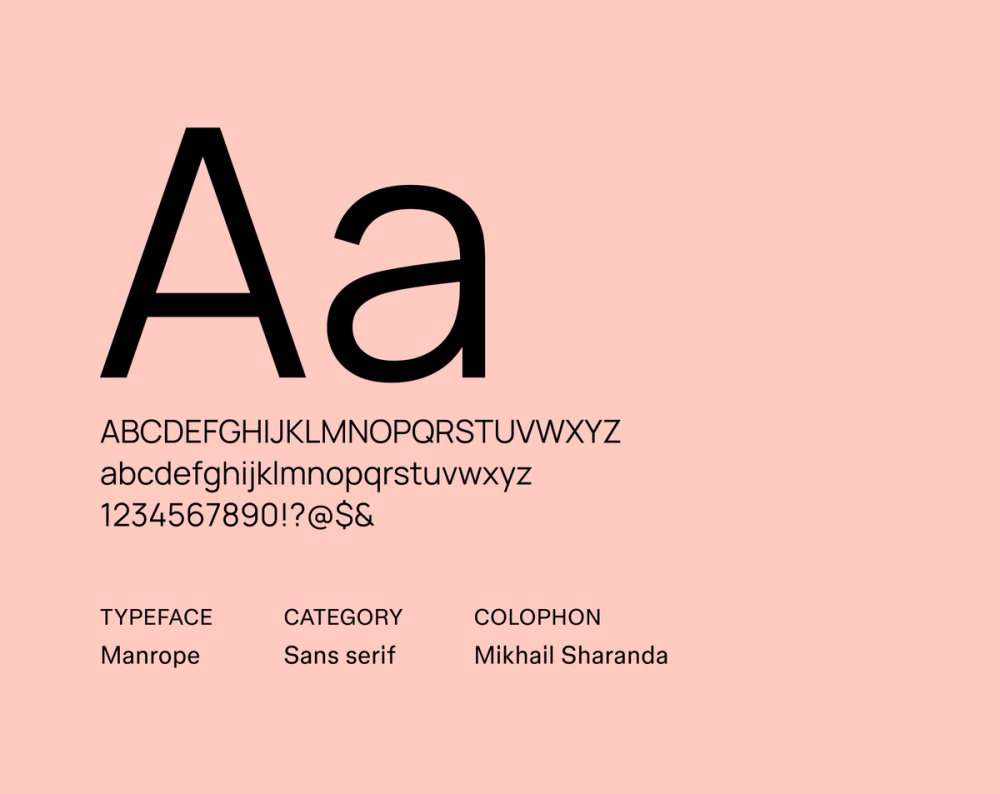
Manrope is a clean and versatile sans serif with open letterforms and subtle stroke modulation. It brings a modern touch to designs while maintaining excellent readability across platforms and sizes.
Best for: Branding, logos, websites, headlines, interfaces, body text
Font 2: Poppins
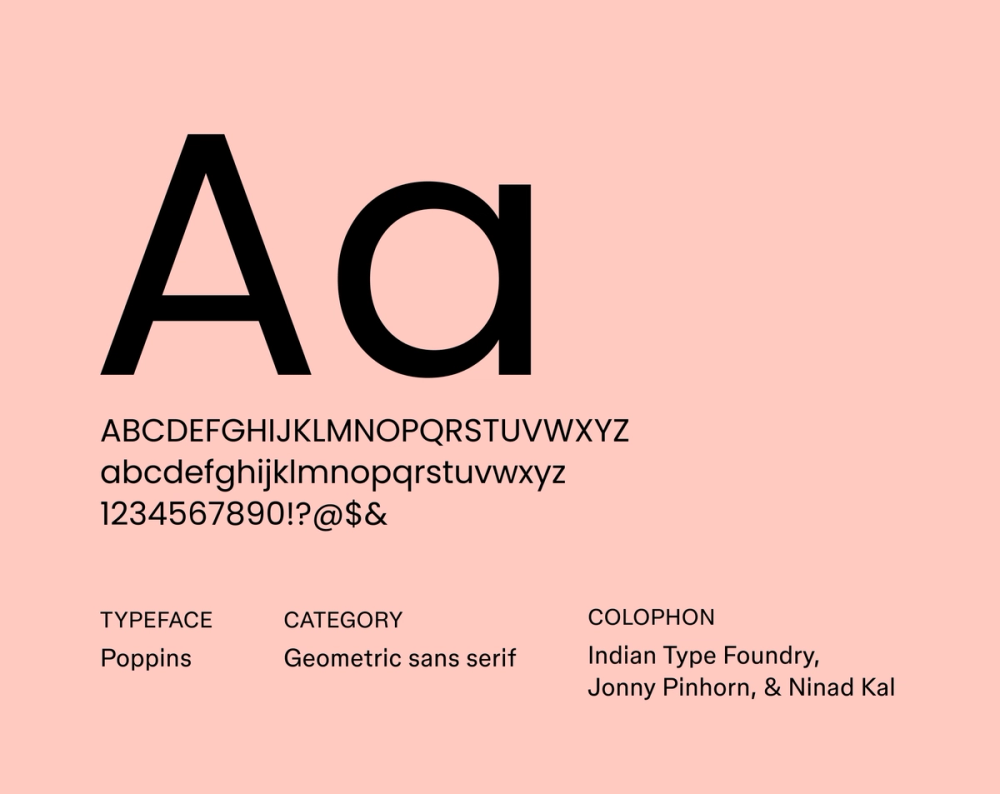
Poppins features clean lines, slightly condensed letterforms, and a friendly, approachable tone. Its clean and minimalist design makes it versatile for body text and display, and its extensive character set supports multiple languages and scripts.
Best for: Body text, websites, branding, mobile apps
Font 3: Work Sans
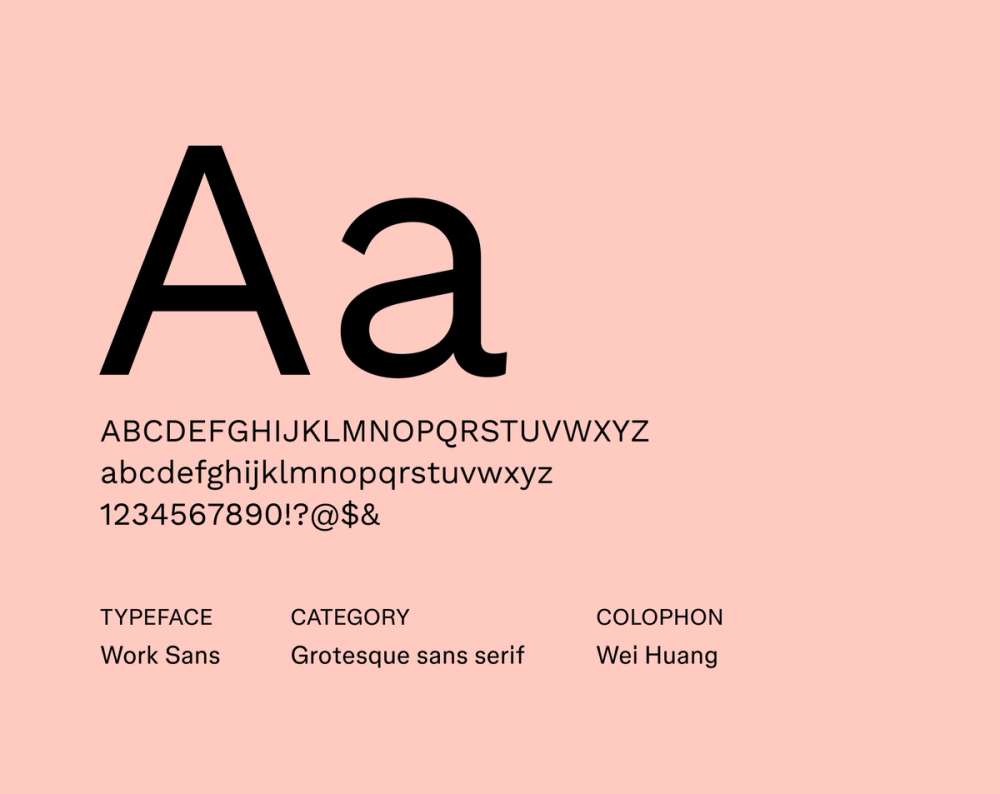
Work Sans is a versatile sans serif designed for readability across screen and print. The middle weights of the family are optimized for on-screen text usage at medium sizes, while the more extreme weights are ideal for display purposes.
Work Sans is characterized by open letterforms, a slightly condensed structure, and a large x-height, contributing to its excellent legibility. Designer Wei Huang was inspired by early grotesque fonts but wanted to incorporate a modern and friendly touch.
Best for: Headlines, logos, interfaces, body text
Font 4: Karla
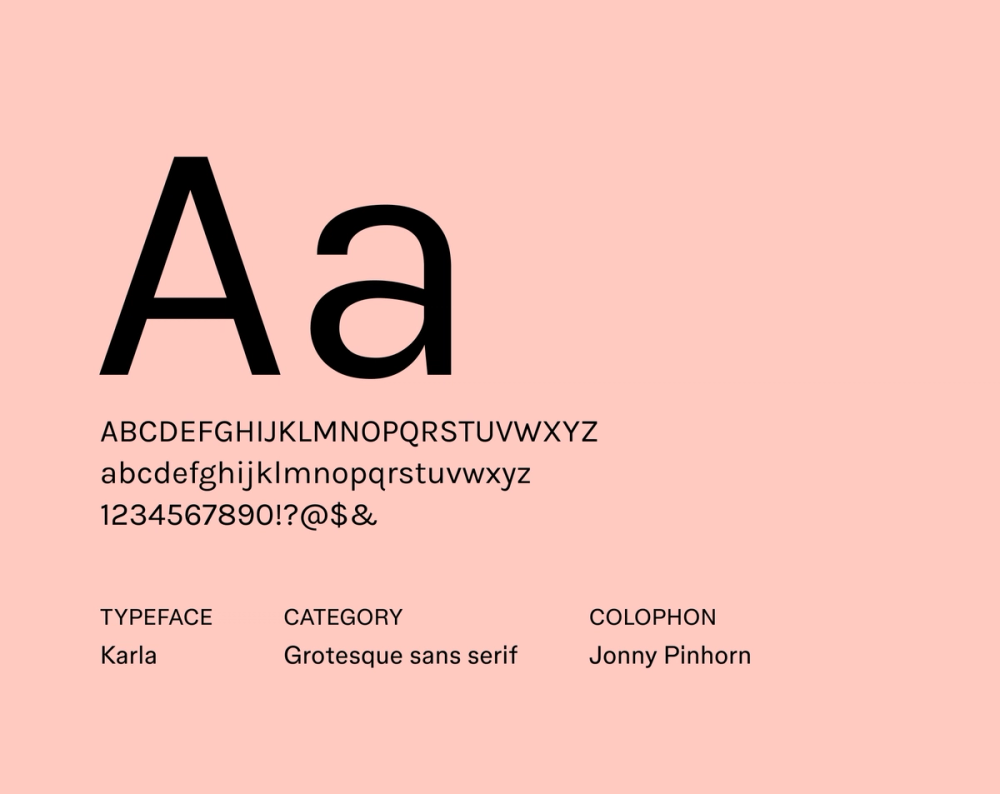
Karla offers open forms, a generous x-height, and slightly condensed letterforms for excellent readability. It works across digital and print projects and supports Latin and Tamil scripts.
Best for: Body text, headlines, interfaces, multilingual projects
Font 5: Dongle
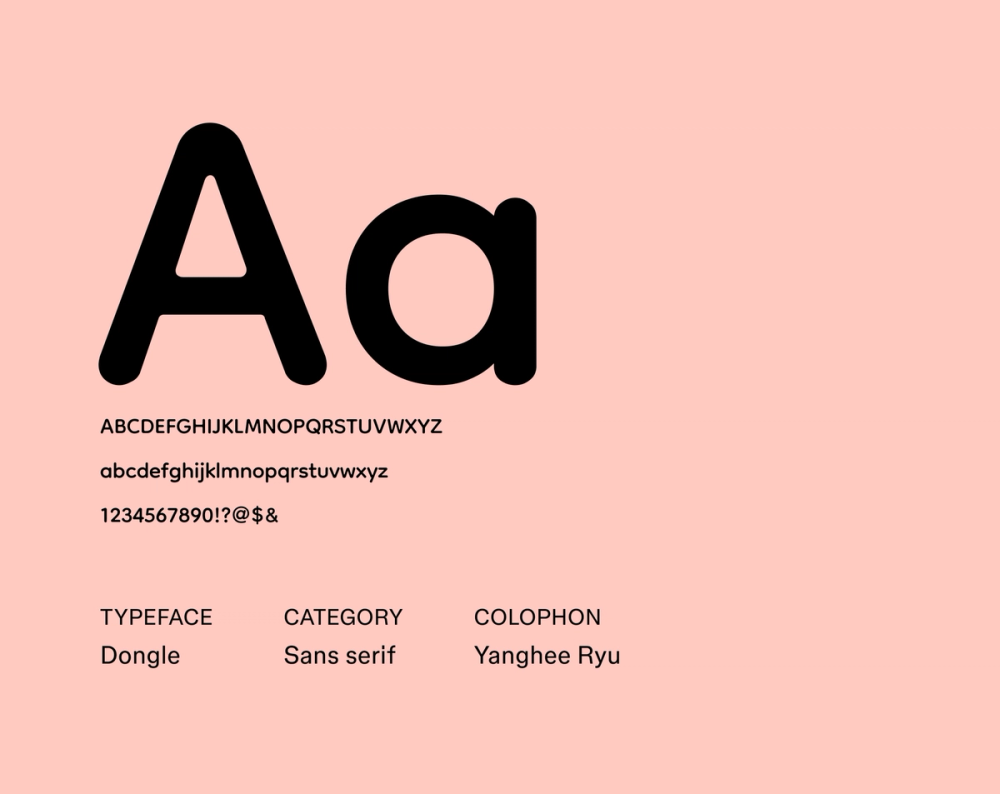
Dongle is a charming, rounded sans serif typeface originally created for the Korean language. Its soft, approachable forms, modular structure, and playful rhythm give it a friendly, approachable feel.
The name “Dongle” comes from a Korean onomatopoeia that describes rounded shapes, perfectly capturing the font’s friendly and inviting aesthetic. While initially designed for Hangeul typography, Dongle also includes Latin characters, making it versatile for multilingual projects.
Best for: Websites, social media, educational materials, posters, packaging, multilingual projects
Font 6: Raleway
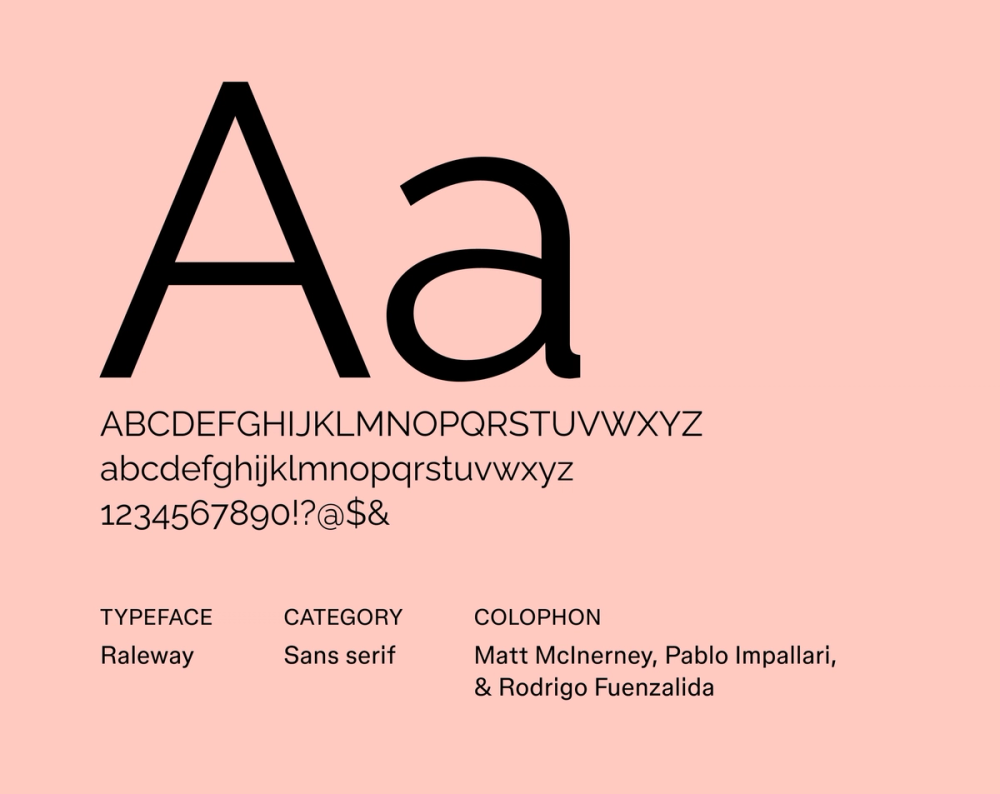
Originally designed as a single thin weight, Raleway expanded into a full family with nine weights. This opened up possibilities for numerous Raleway font pairings.
Its elegant sans serif structure blends geometric and humanist influences, making it a versatile choice for display, branding, and body text..
Best for: Headlines, logos, branding, body text
Font 7: Inconsolata
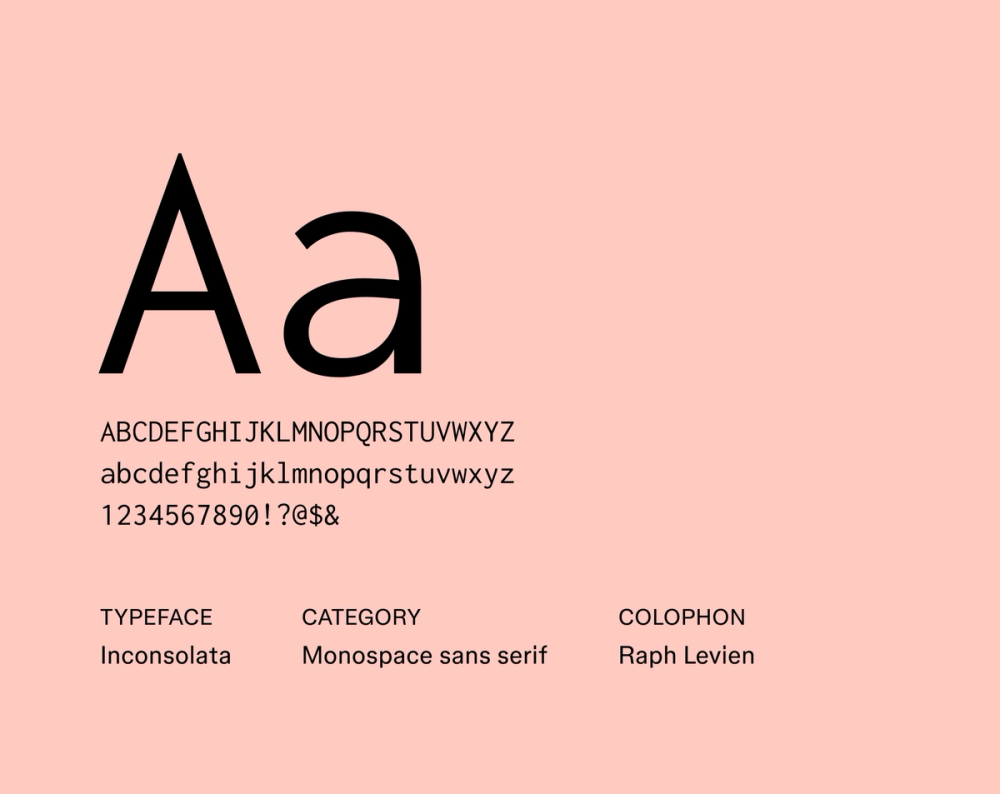
Inconsolata is a monospace font designed for code listings and technical documents, drawing inspiration from classic typefaces like Consolas, Avenir, and Letter Gothic.
Its humanist touches and clear letterforms also make it surprisingly versatile for programming environments, terminals, and body text in documents or retro-style Web pages.
Best for: Coding, technical documentation, body text, websites
Font 8: Comfortaa
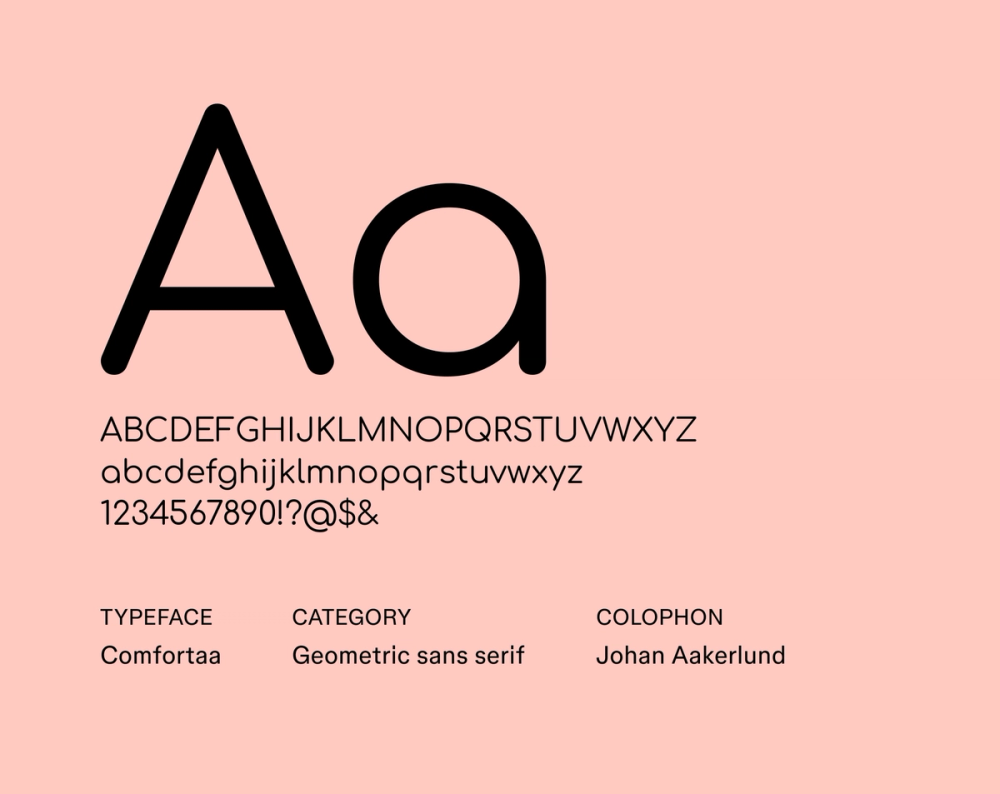
With a focus on comfort and readability, Comfortaa has smooth, rounded shapes, open letterforms, and an approachable feel.
Comfortaa’s excellent legibility and friendly aesthetic make it popular for children’s designs or projects that want to convey warmth, both in digital and print applications like posters, flyers, and brochures.
Best for: Titles, headlines, websites, body text, posters, brochures
Font 9: Antic
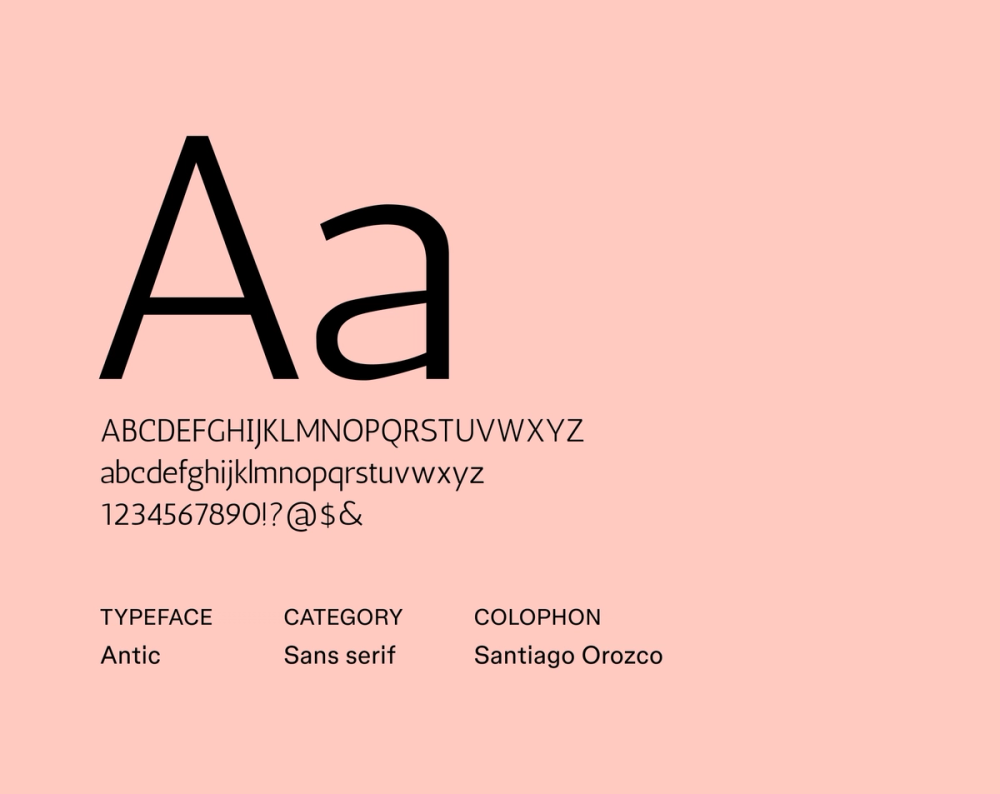
Antic, created by Santiago Orozco, blends a clean sans serif structure with subtle calligraphic warmth. Its subtle stroke modulation adds personality without losing the simplicity needed for minimalist designs.
Best for: Websites, branding, magazines, books
Font 10: Actor
Actor is a contemporary sans serif with a strong geometric structure, open letterforms, and a hint of calligraphic influence. Highly legible and versatile, Actor works well in both display and body text applications.